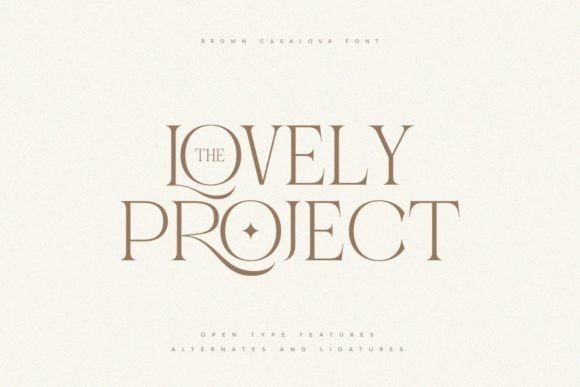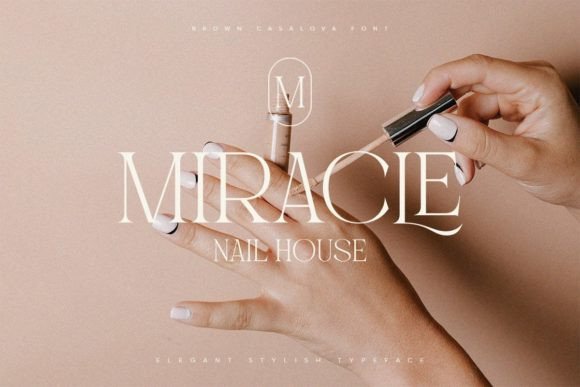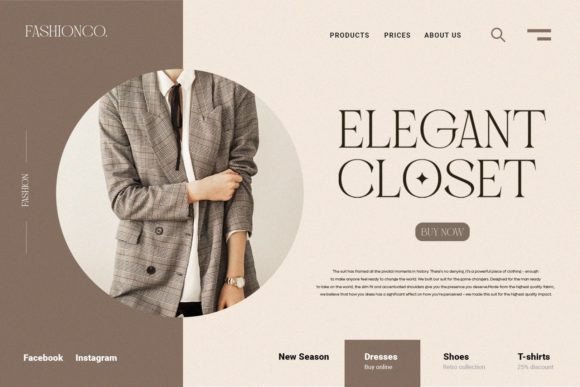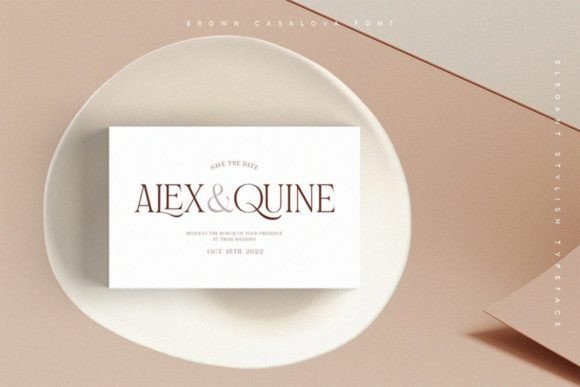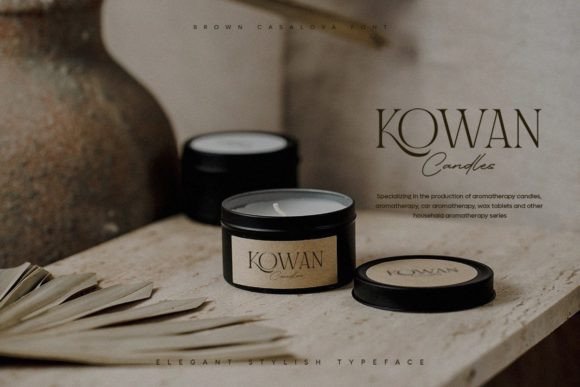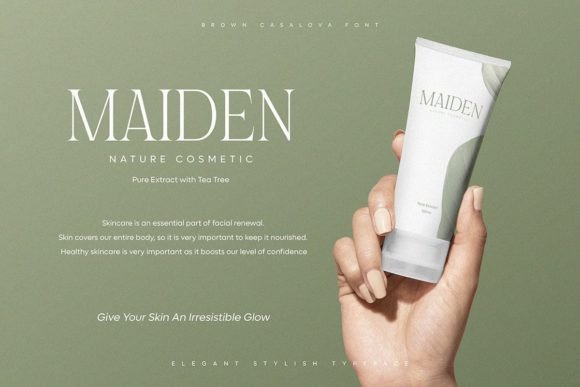
Introduction to Brown Casalova Font
Have you ever been stuck on a creative project, trying to find the perfect font to bring your design to life? It’s a feeling that’s all too familiar for many designers. But what if you stumbled upon a font that not only exceeded your expectations but also added a touch of elegance to your work?
That’s exactly what happens when you discover the Brown Casalova Font. This stylish and sophisticated serif font is a game-changer for any design project. Whether you’re creating eye-catching logos, branding, or quotes, the Brown Casalova Font is the perfect choice. Its unique and beautiful touch will make your design stand out, and its high quality will ensure that your work looks professional and polished.
As a valuable resource for designers, the Brown Casalova Font is a must-have in your design arsenal. With its transparent background and PUA encoded features, you’ll have access to all the amazing glyphs and ligatures you need to take your creative project to the next level. And the best part? You can download it for free, making it an essential design resource for any creative project.
Key Features of Brown Casalova Font
- High-quality design resource with a unique, stylish aesthetic, ideal for creative projects.
- Features a transparent background, allowing for seamless integration into various design compositions.
- Comes in a single font size, making it easy to use and adjust to different design requirements.
- Designed with a resolution of 72 dpi, suitable for digital applications and web design.
- Unique characteristics include a distinctive brown color scheme and elegant typography, making it a standout choice for creative projects.
Honest Review: Brown Casalova Font
I recently had the chance to work with the Brown Casalova Font, and I must say, it’s a great addition to any designer’s toolbox. With a free download option available, it’s a fantastic resource for anyone looking to elevate their creative project.
Here are some of the things that stood out to me:
- ✨ High quality design: The Brown Casalova Font is incredibly well-crafted, with smooth lines and a clear, readable typeface.
- ✨ Versatility: I found the font to be highly versatile, suitable for a wide range of design applications, from branding to digital products.
- ✨ Transparent background: The font’s transparent background made it easy to integrate into my design, allowing for seamless layering and composition.
Of course, no font is perfect, and I did encounter a few limitations:
- ⚠️ Limited language support: While the font is great for English text, I found it to be less effective for languages with more complex scripts.
- ⚠️ Limited font sizes: I found the font to be less legible at very small or very large font sizes.
Overall, I’m very impressed with the Brown Casalova Font. It’s a high-quality design resource that’s perfect for any creative project. With a few minor limitations, it’s a great addition to any designer’s toolkit.
Use the Brown Casalova Font on a transparent background to create a subtle and elegant design. Experiment with different font sizes and styles to add visual interest to your design. You can also pair the Brown Casalova Font with other high-quality design resources for a cohesive look.
The Brown Casalova Font is ideal for creative projects that require a touch of sophistication and elegance. Use it for wedding invitations, luxury branding, or high-end marketing materials. You can also use it for personal projects, such as creating a custom logo or branding for your business.